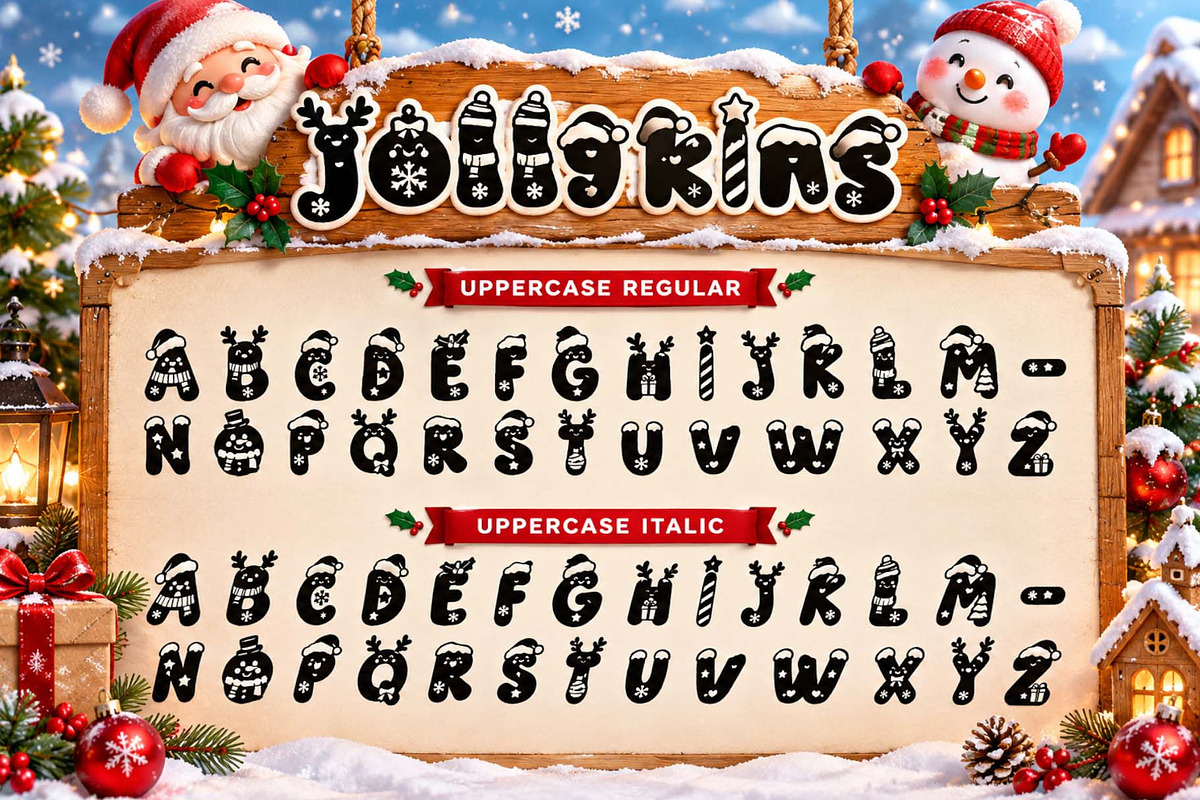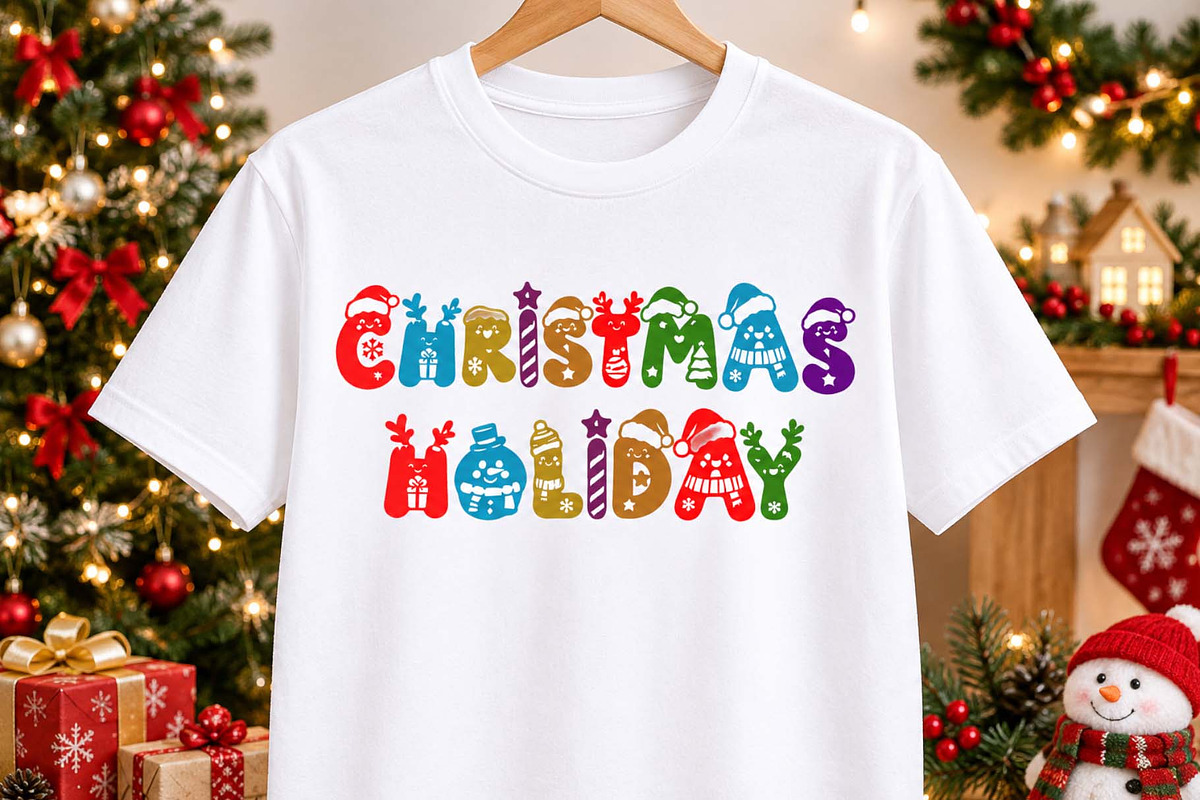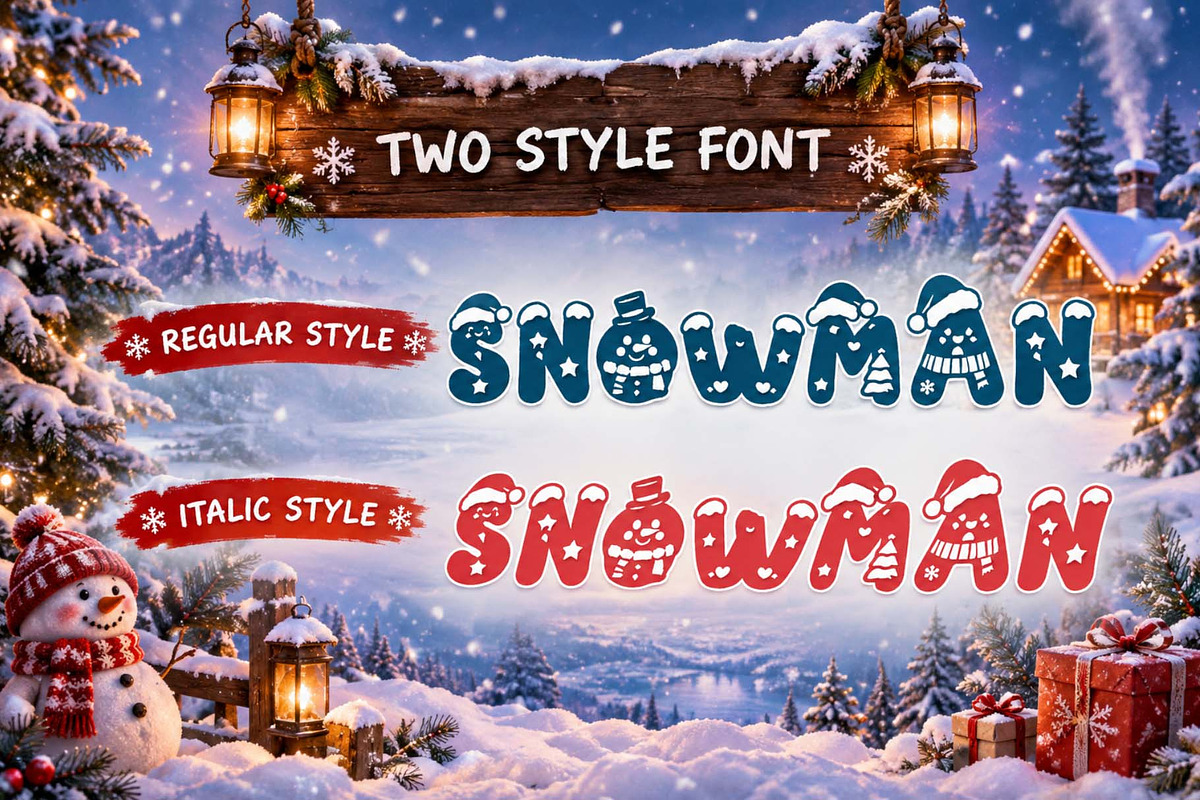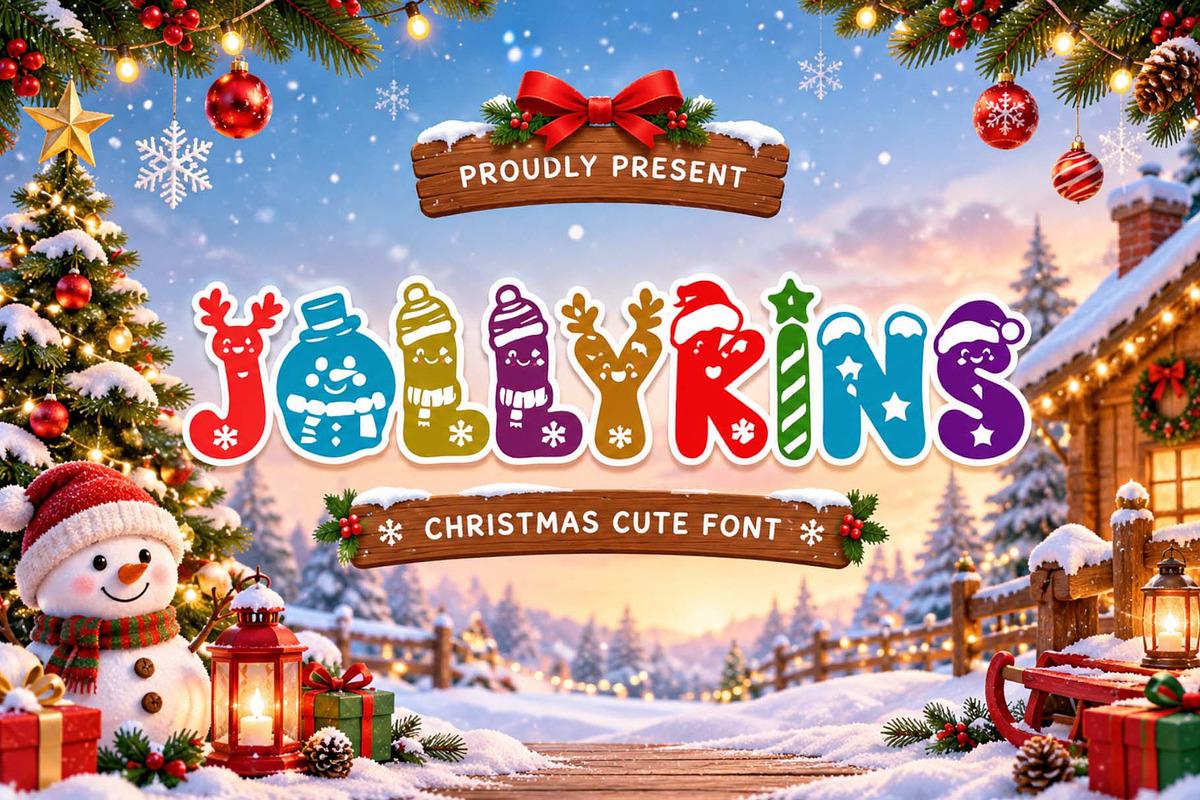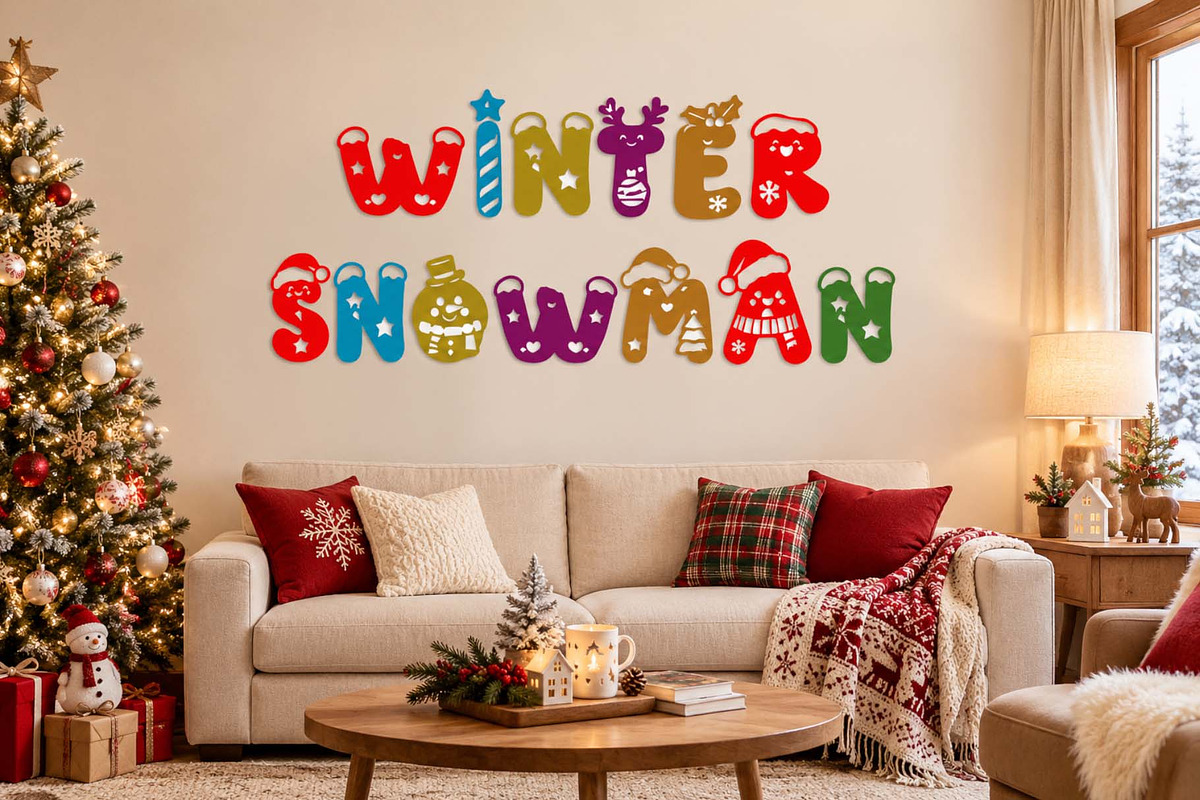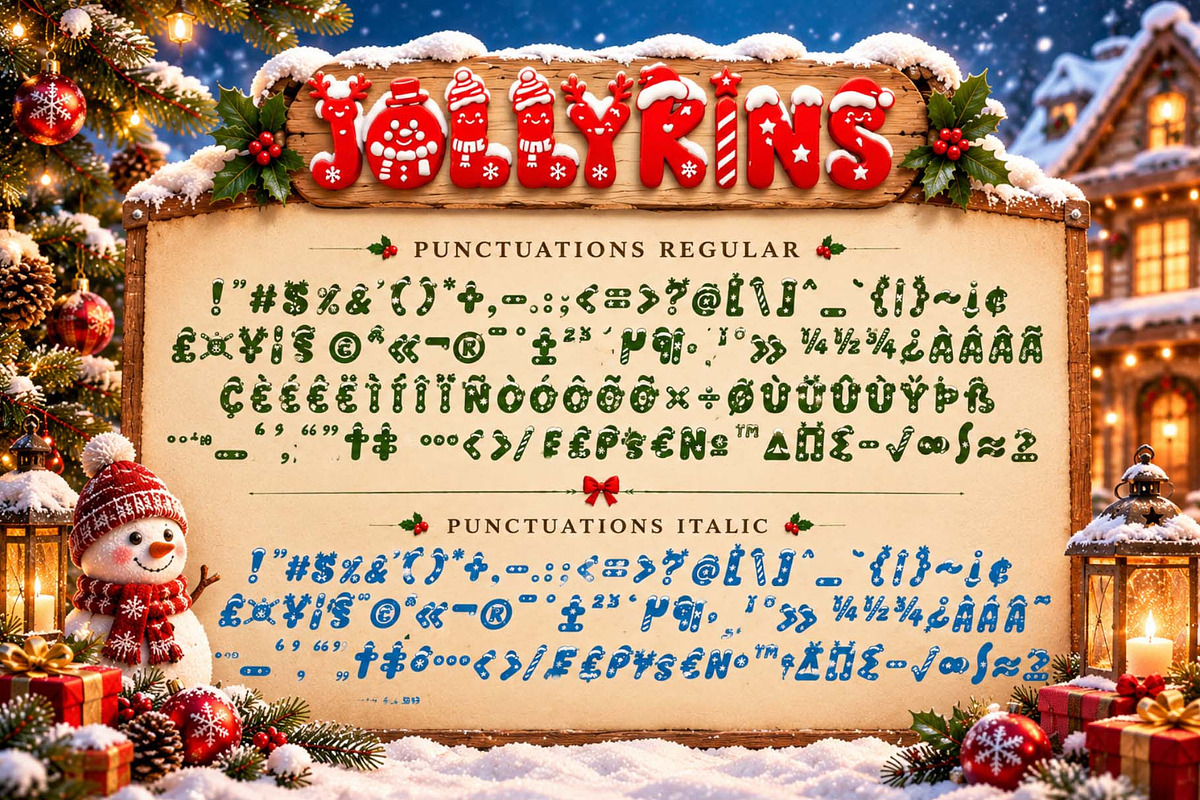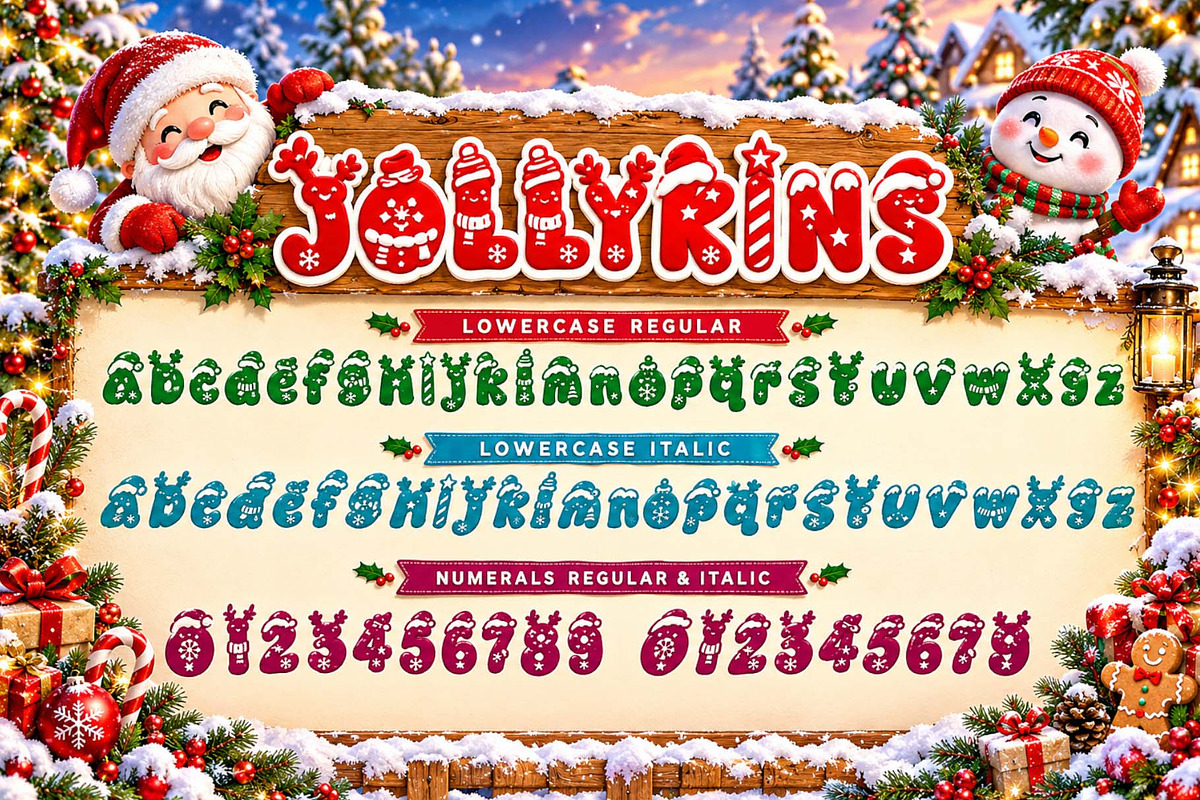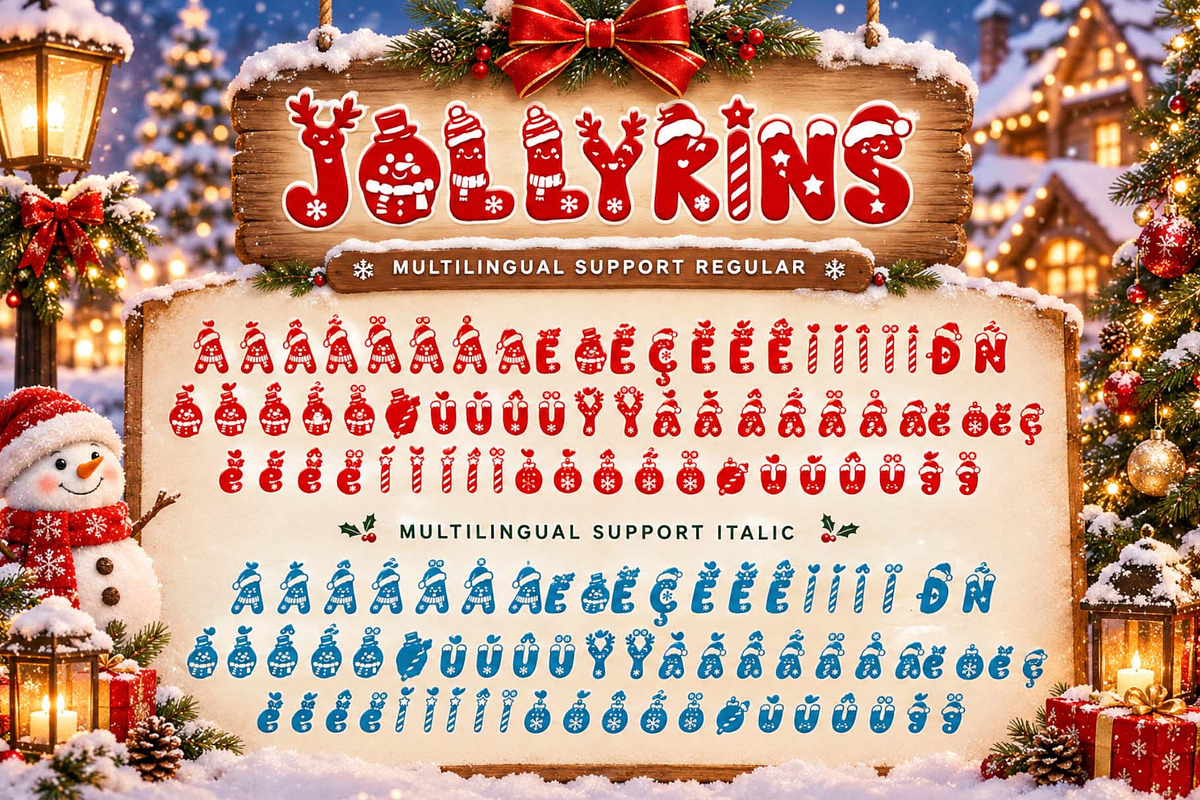
Jollykins
Jollykins is a fun, playful, and cheerful Christmas-themed display font designed to instantly bring a whimsical holiday vibe to your projects. With its charming letterforms, rounded design, and joyful character, Jollykins is perfect for creating designs that feel warm, festive, adorable, and full of Christmas spirit.
Whether you are designing Christmas cards, party invitations, product packaging, projects for children, or holiday merchandise, Jollykins turns your text into a decorative element in its own right.